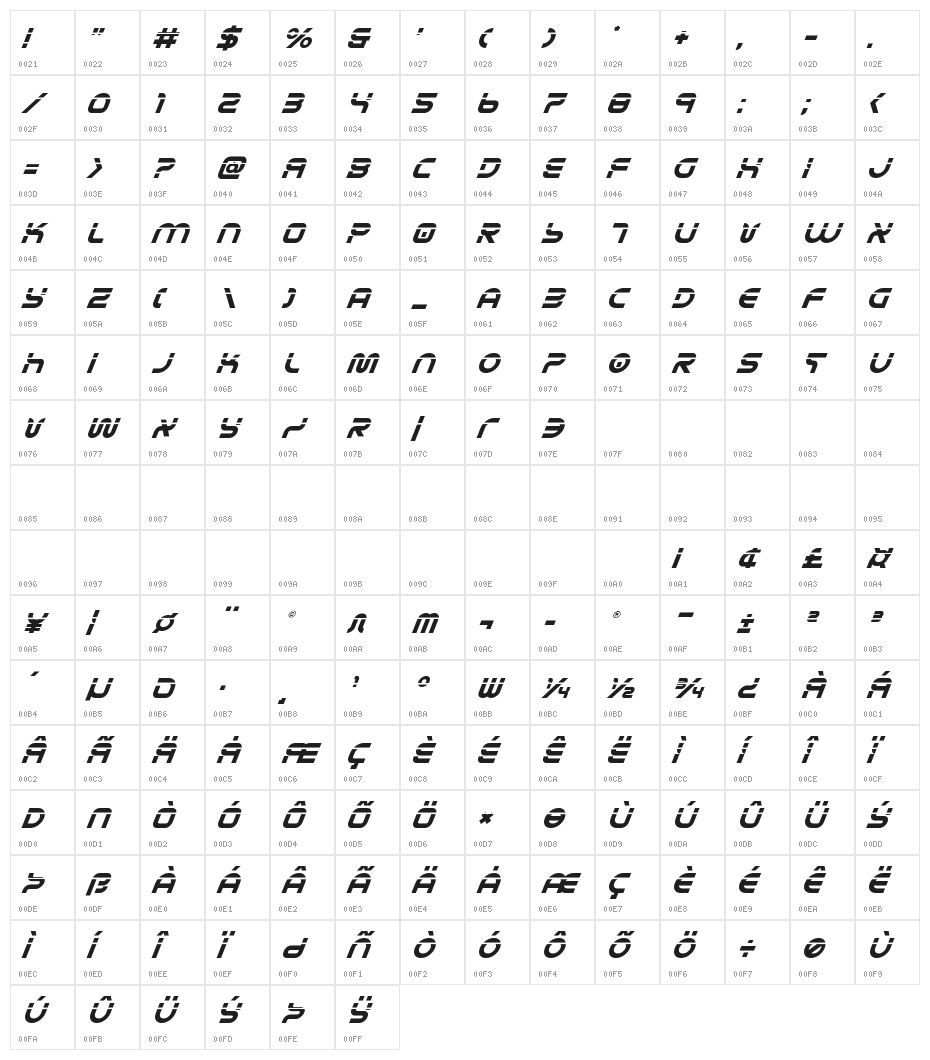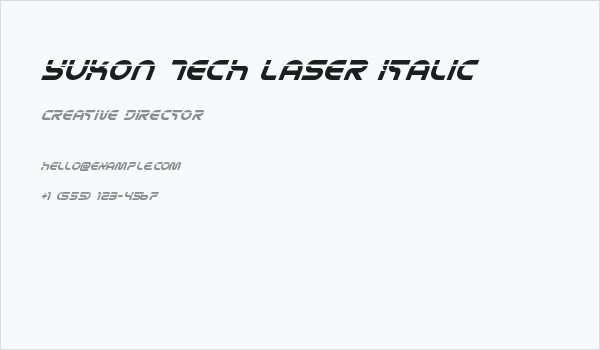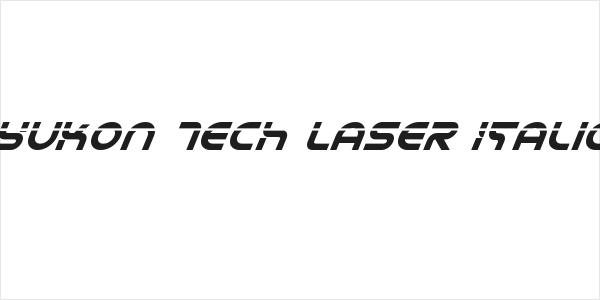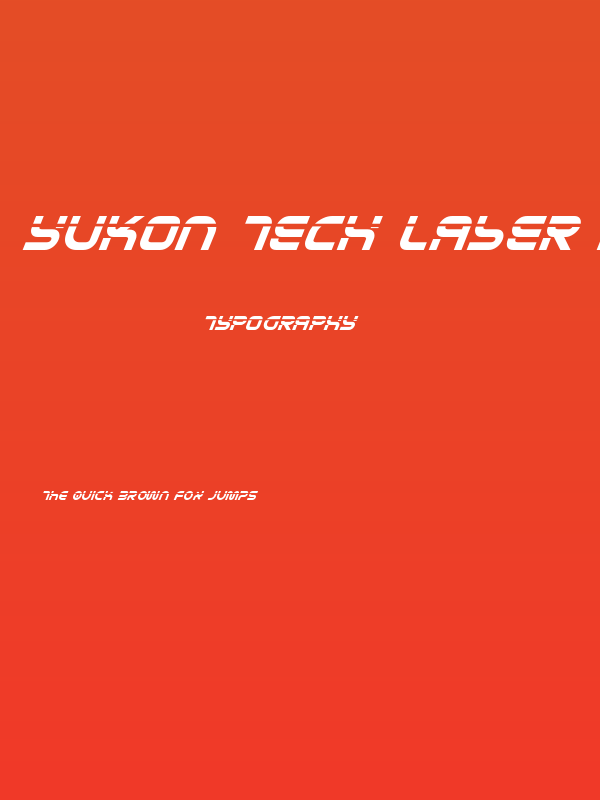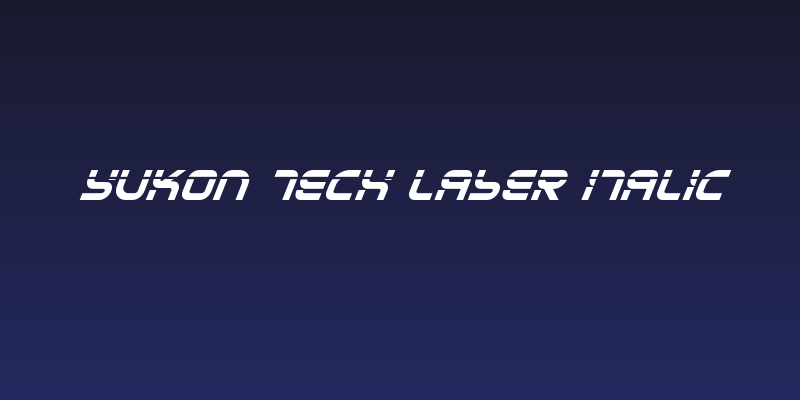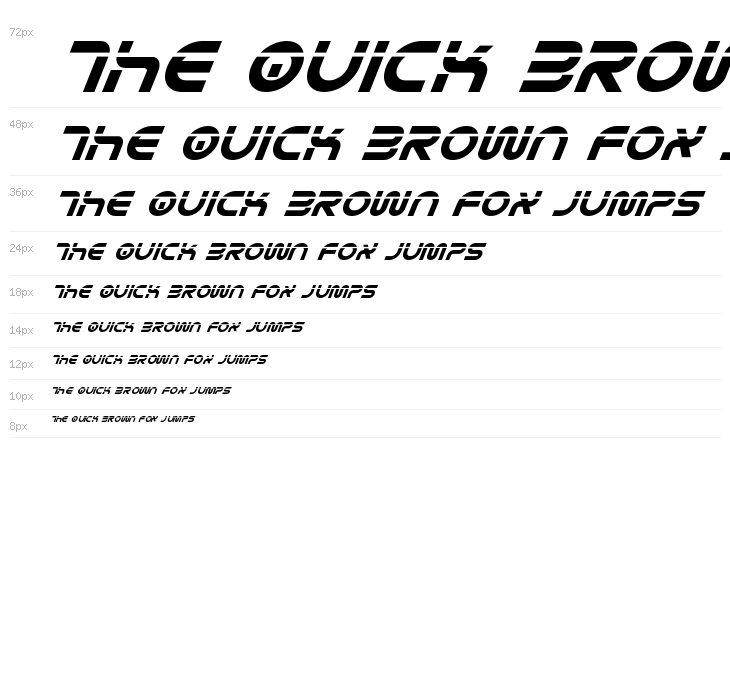
Yukon Tech Laser Italic Font
Yukon Tech Laser Italic Description
This font exhibits a futuristic and dynamic style, characterized by its italicized, angular letterforms and distinct geometric cuts. The design incorporates sharp edges and a sleek, streamlined appearance, reminiscent of high-tech or sci-fi themes. The characters are bold and impactful, with a consistent slant that adds a sense of motion and speed. The unique treatment of certain letters, such as the incorporation of slashes and breaks, enhances its modern and innovative aesthetic. This font is ideal for projects that require a cutting-edge and technological feel, making it suitable for branding, advertising, and digital interfaces.
| Use Case | Logos, Headlines, Digital Interfaces |
| Proposed Projects | Ideal for tech branding, sci-fi movie posters, video game titles, and digital interfaces. |